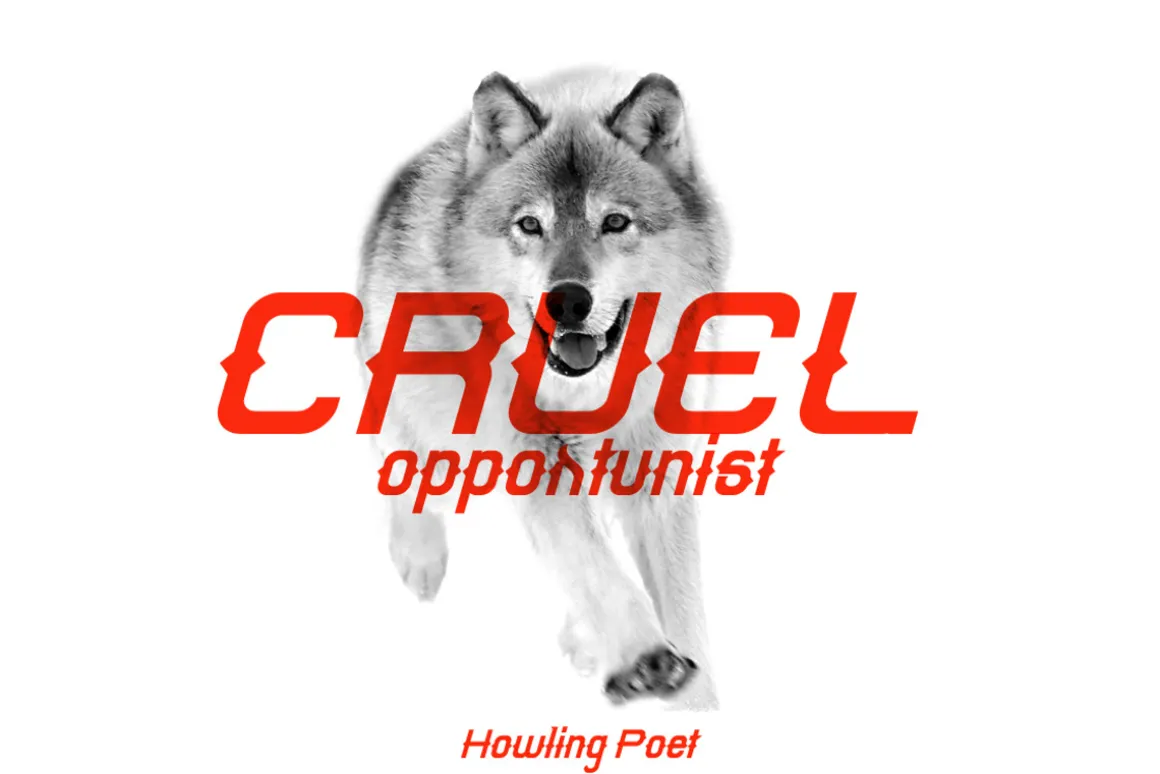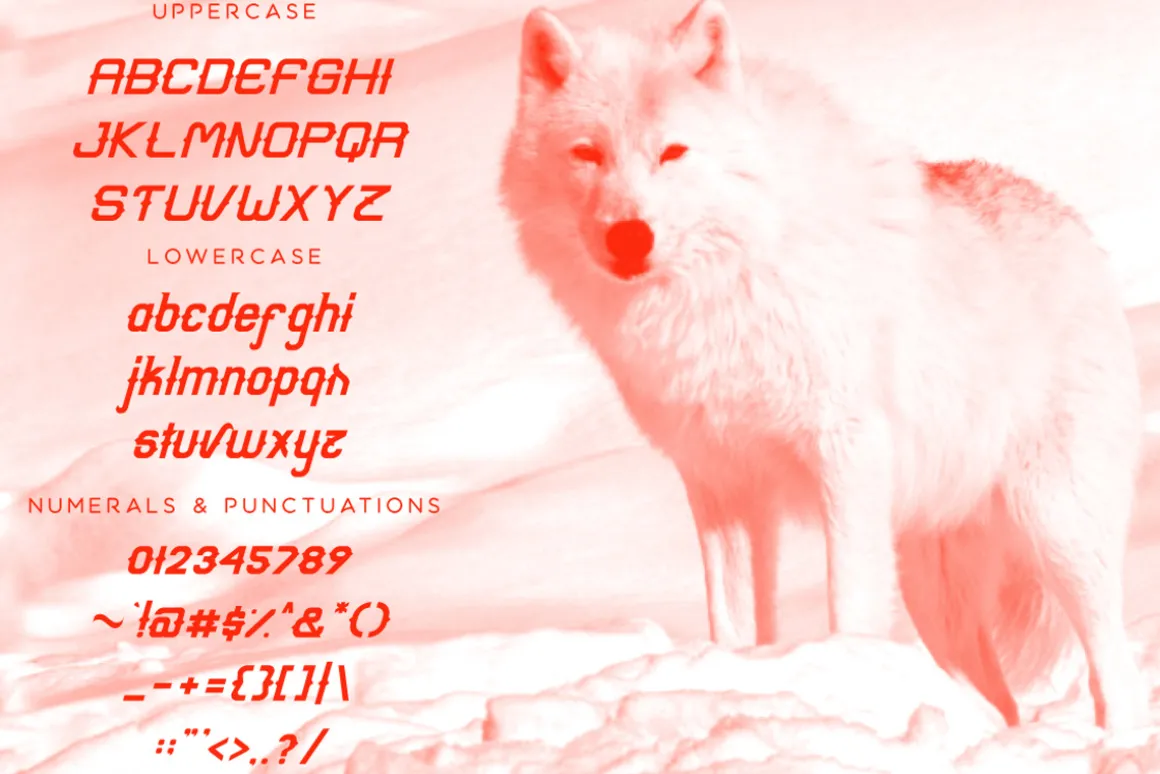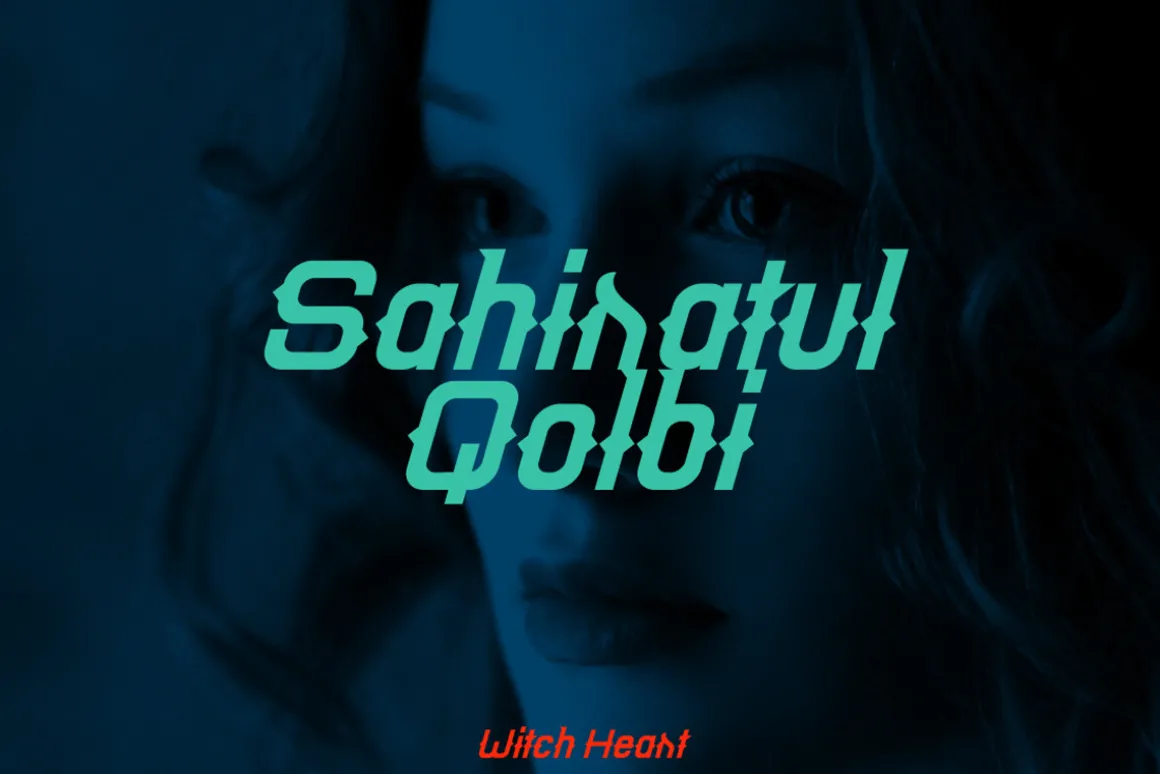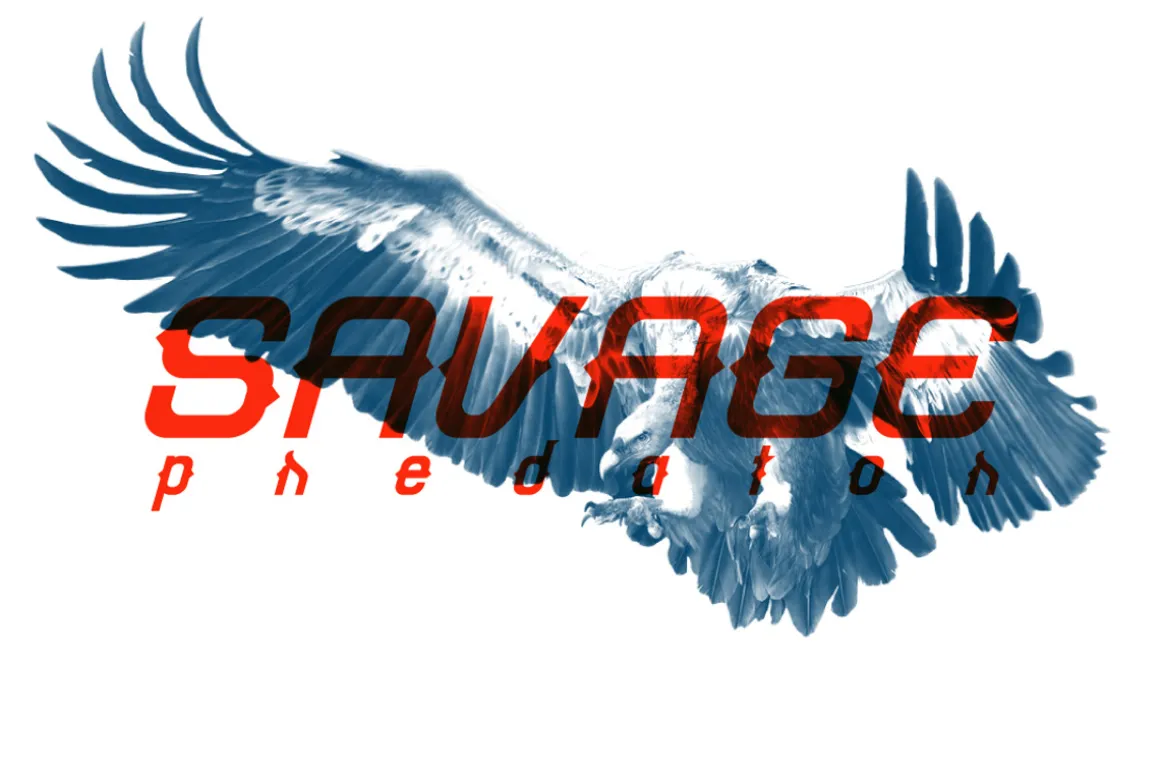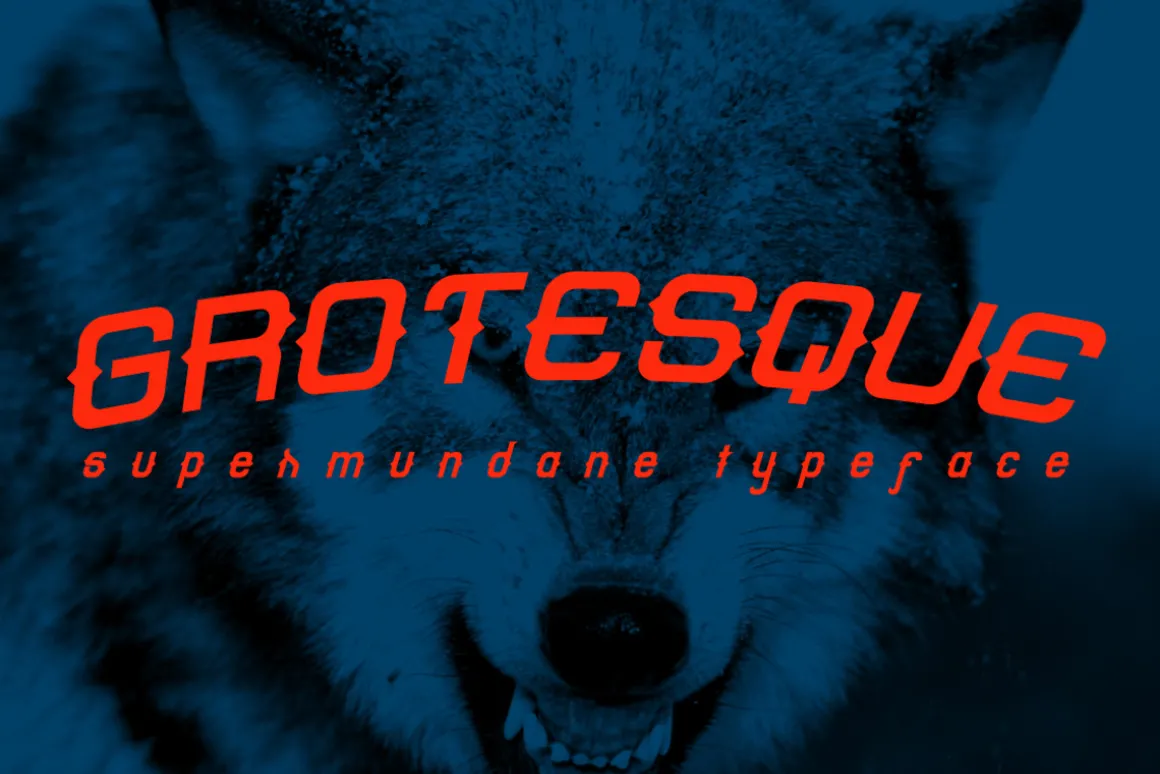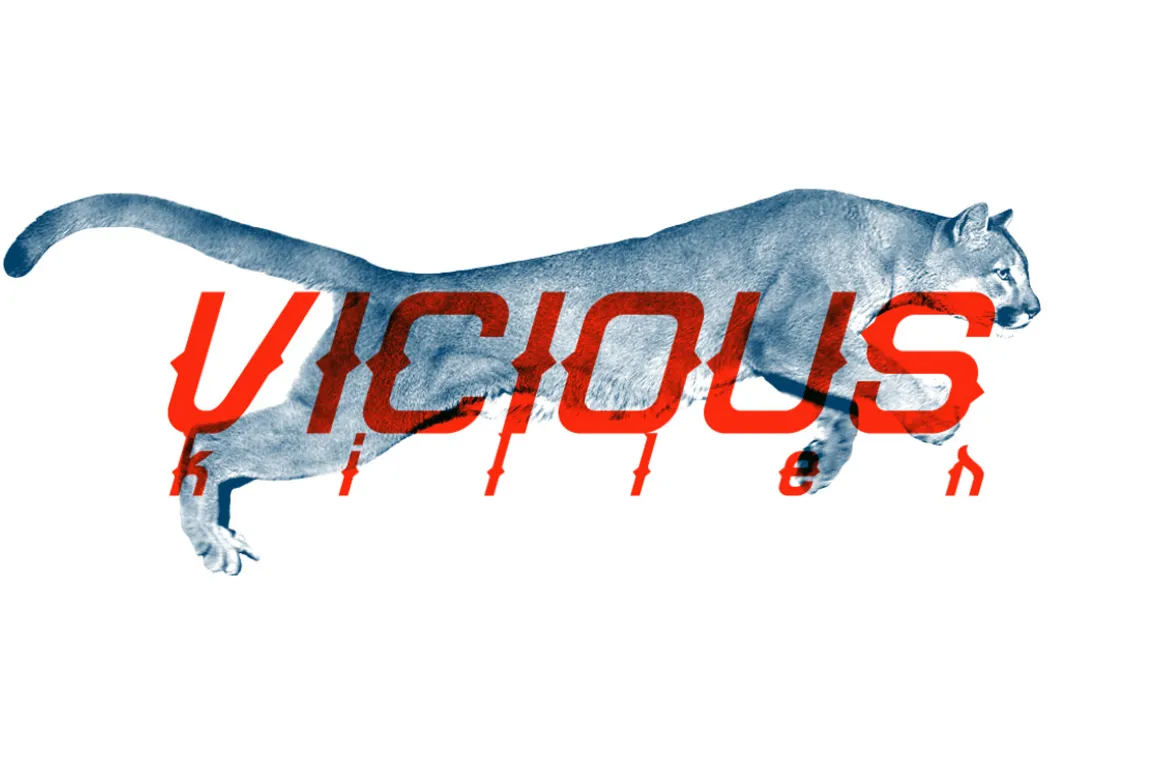
Grotesque Supermundane Font a handmade font with unique style would be awesome for your design projects. It could be fitted for logos, quotes, t-shirts, posters or anything. Available in uppercase, lowercase, numerals and punctuations.